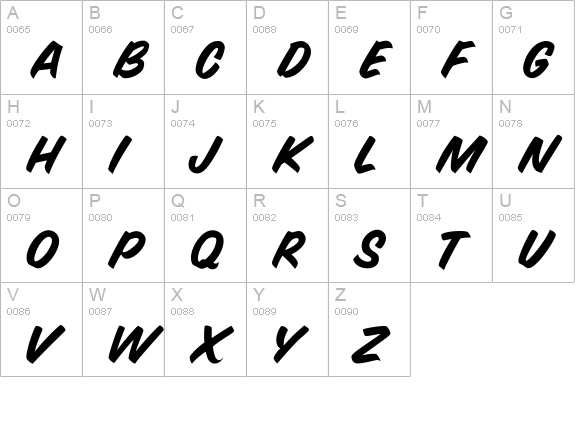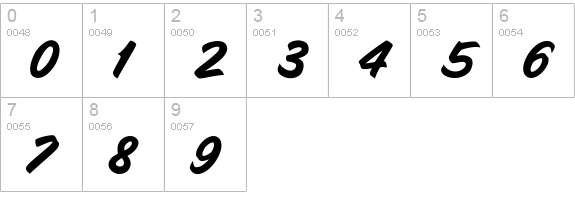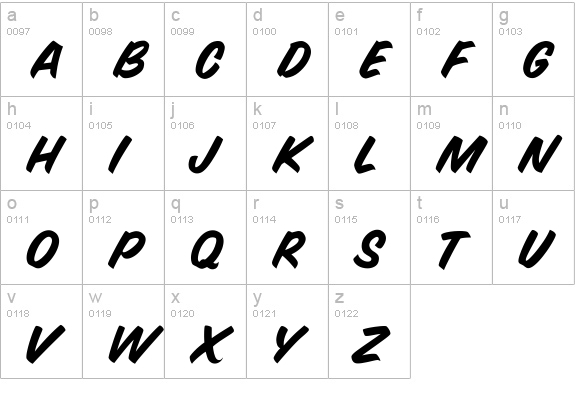
Snyders Font Details
Introducing Snyders, a captivating font that effortlessly blends sophistication with a modern edge. With its sleek lines and bold curves, Snyders is the perfect choice for those seeking a font that exudes confidence and style. This versatile typeface is suitable for a wide range of creative projects, from branding and logos to editorial layouts and social media graphics. Its unique design captures attention and leaves a lasting impression, ensuring that your message stands out in a crowded digital landscape. But what truly sets Snyders apart is that it is not only visually stunning, but also freely available to download. Yes, you heard it right - this remarkable font can be yours at absolutely no cost. Thanks to FontsMarket.com, you can access Snyders and unlock its full potential without breaking the bank. Whether you're a professional designer or a passionate DIY enthusiast, Snyders empowers you to elevate your creative endeavors without any financial constraints. Its seamless integration into various design software makes it a breeze to work with, allowing you to bring your vision to life effortlessly. So why wait? Embrace the power of Snyders and unleash your creative genius. Download this exceptional font for free today at FontsMarket.com and discover a world of endless possibilities. With Snyders, there are no limits to what you can achieve.